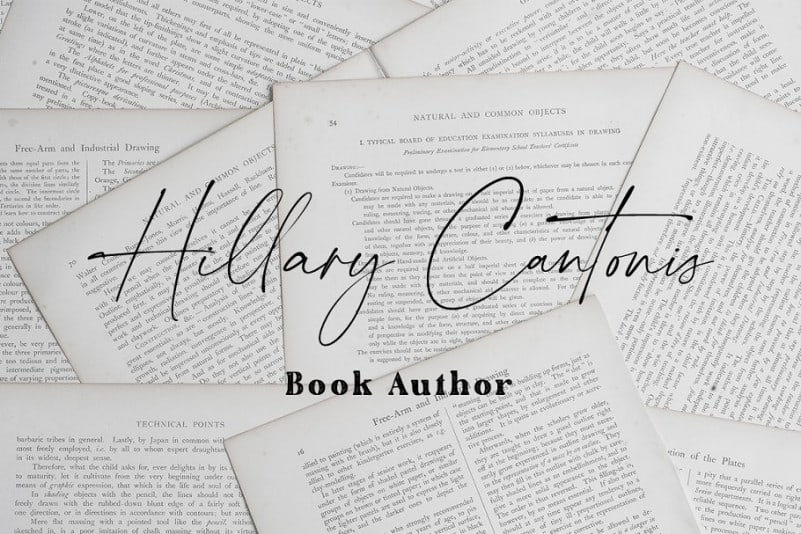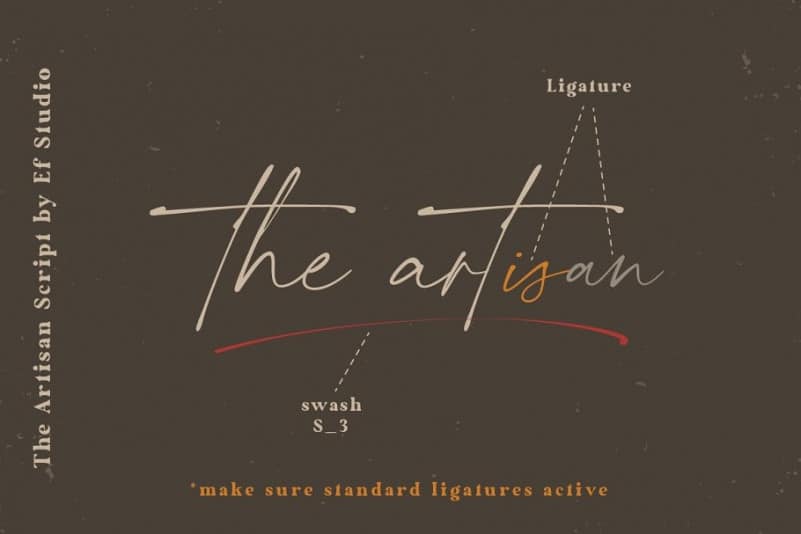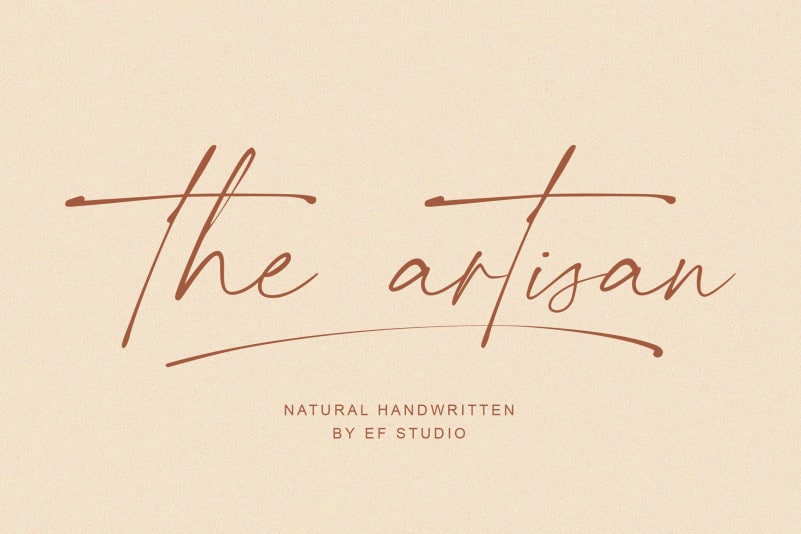
The Artisan Handwritten Font is a hand drawn font. Made from font designer named Ef Studio. The Artisan has additional ligatures and swashes which is easy to use and will add a cool impression to your designs. This font suitable to used for every project like branding, logo, print on goods, merchandise, website, quotes, social media, and others. The combination of both this font very unique, modern and artistic.